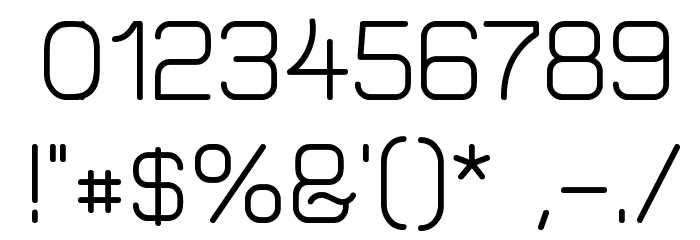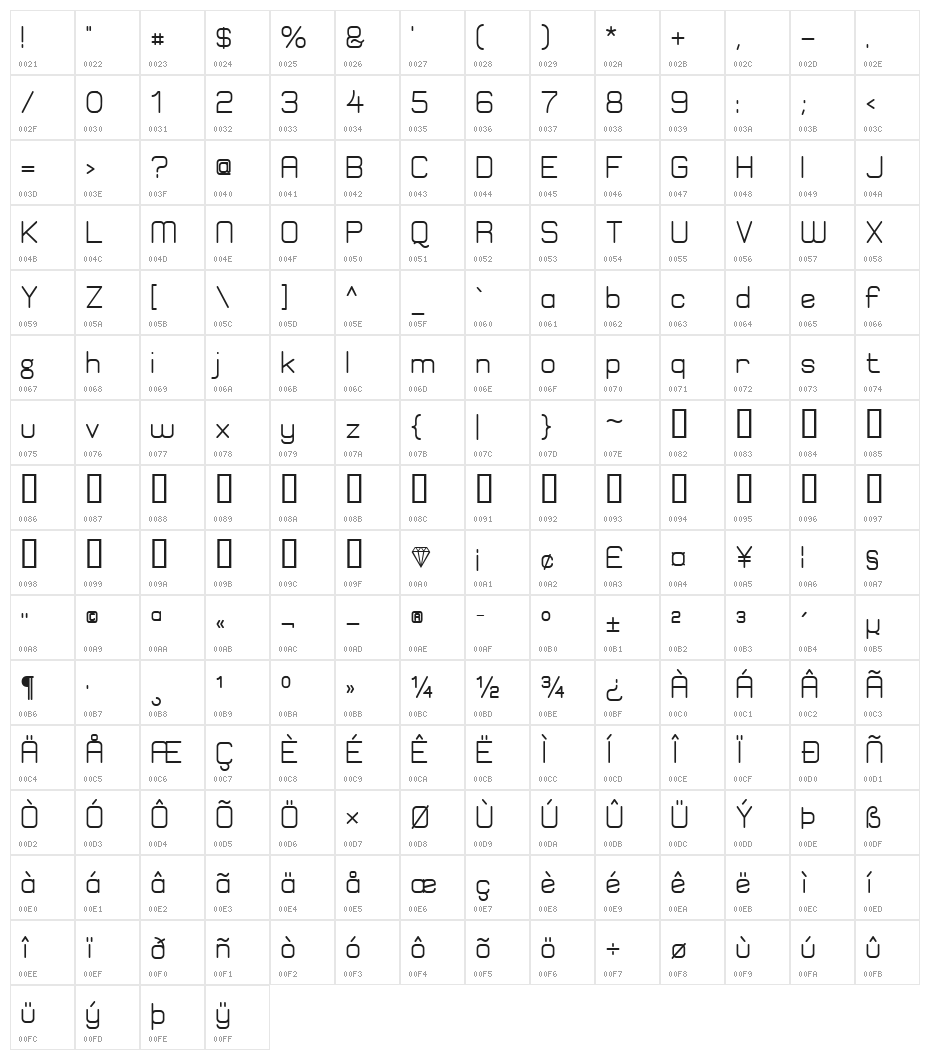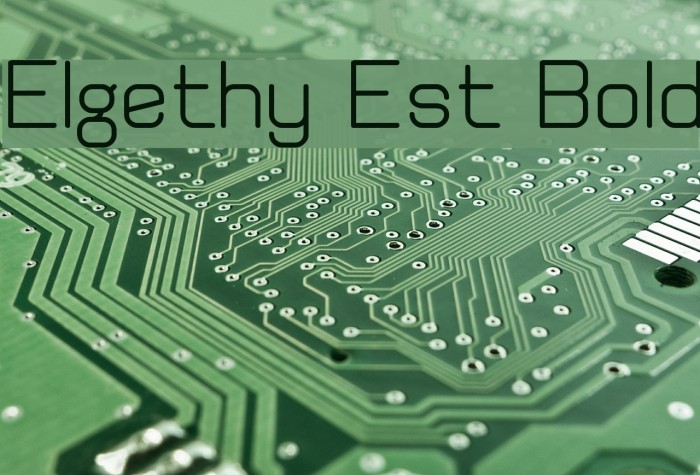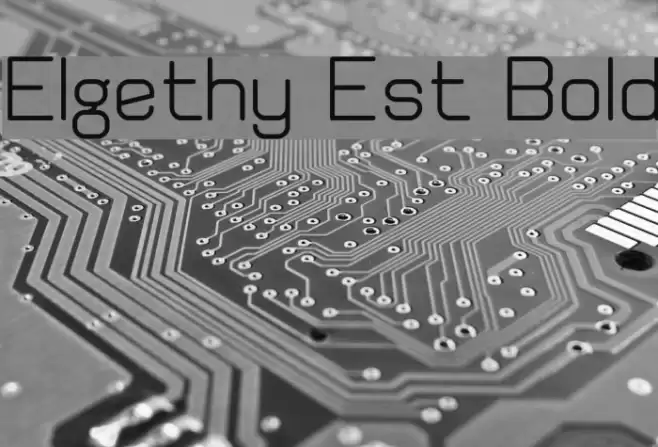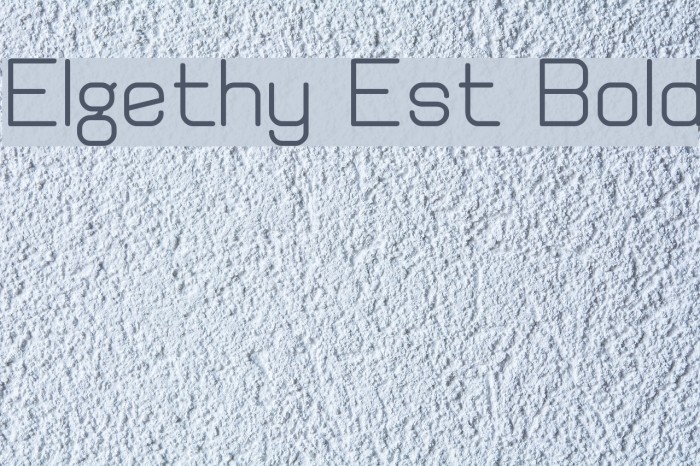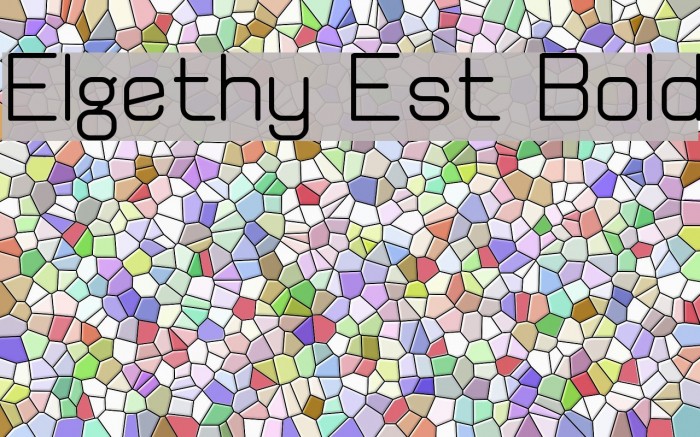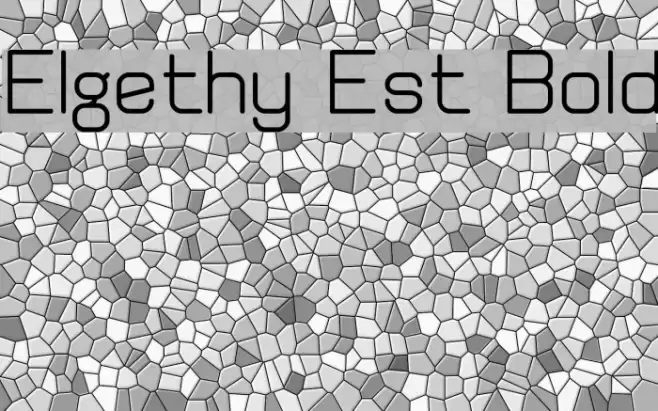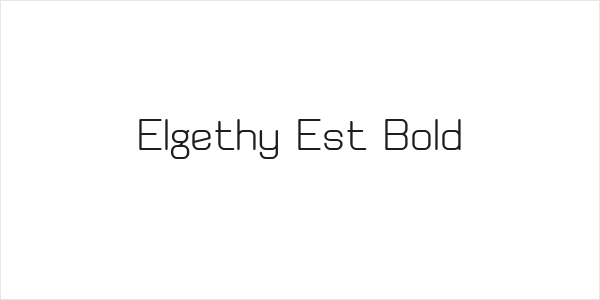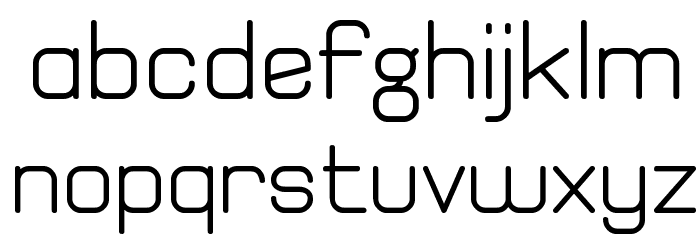
Elgethy Est Bold Font
Elgethy Est Bold Description
This font features a modern, geometric design with clean lines and rounded edges, creating a sleek and contemporary appearance. The characters are uniform in width, contributing to a balanced and harmonious look. The uppercase and lowercase letters maintain a consistent style, with a slight variation in height that adds visual interest. The numerals and special characters are designed to match the overall aesthetic, ensuring a cohesive appearance across all elements. The font's simplicity and clarity make it highly legible, even at smaller sizes, while its unique style adds a touch of sophistication.
| Use Case | Headlines, Logos, Digital Interfaces |
| Proposed Projects | Ideal for branding, digital interfaces, advertising, and editorial design projects that require a modern and clean aesthetic. |